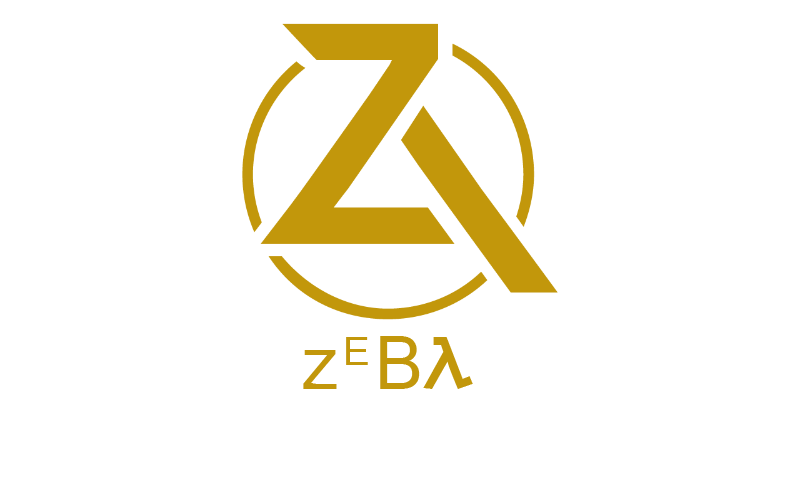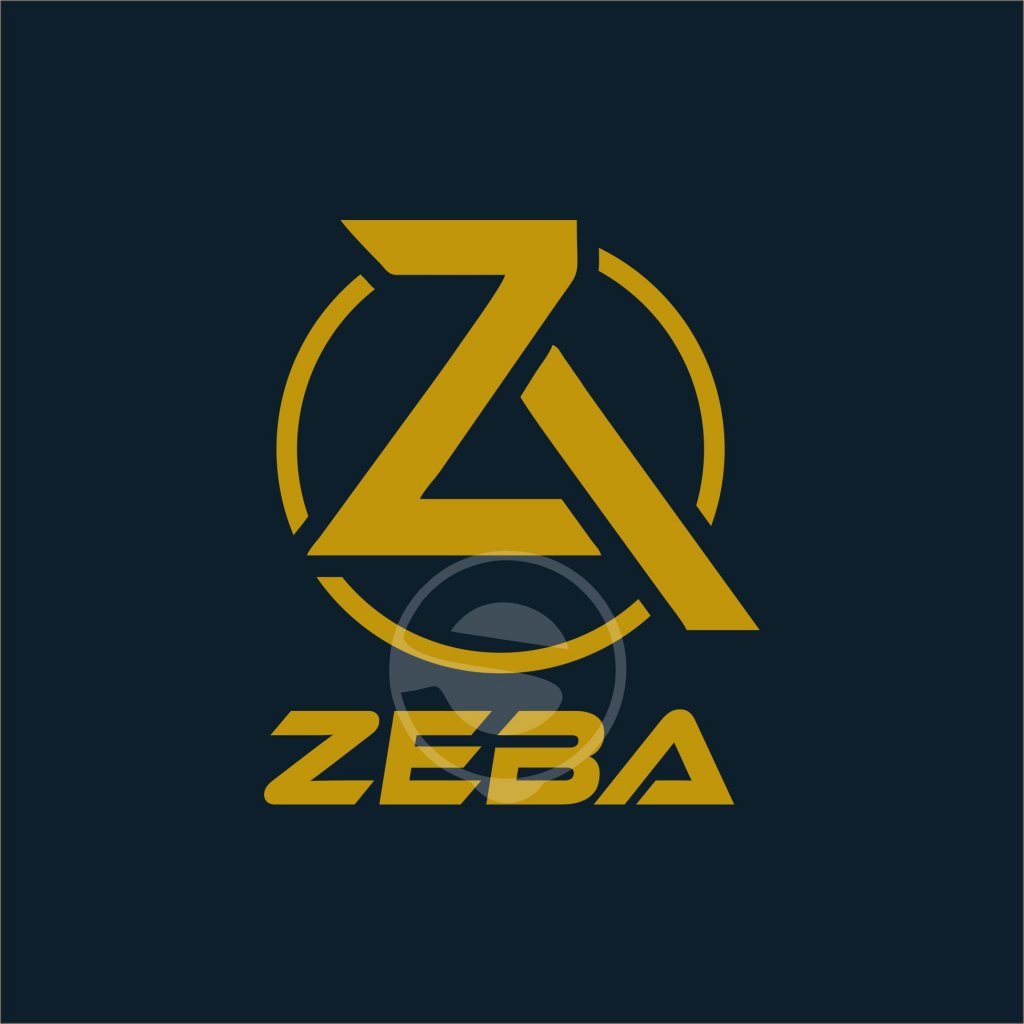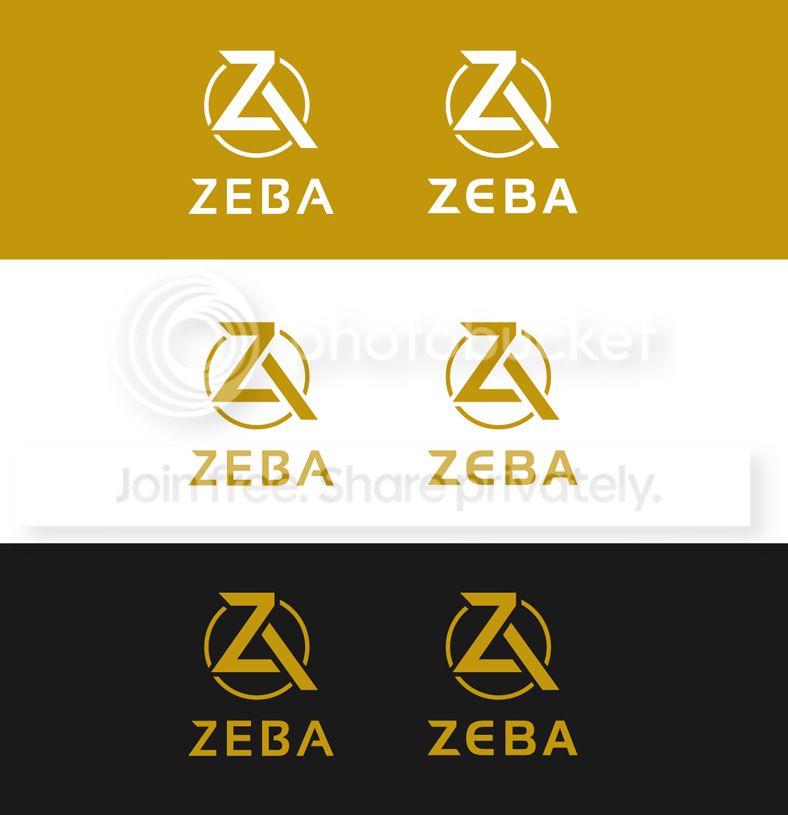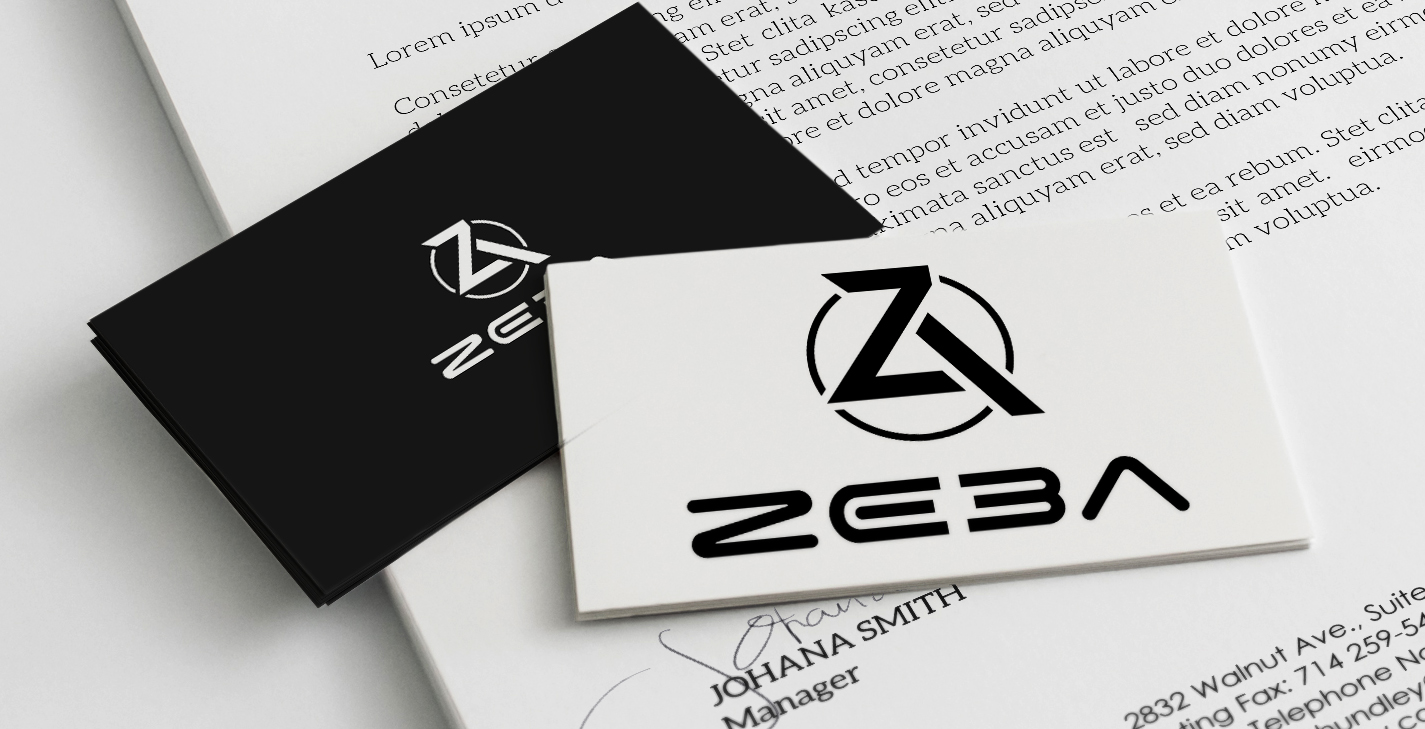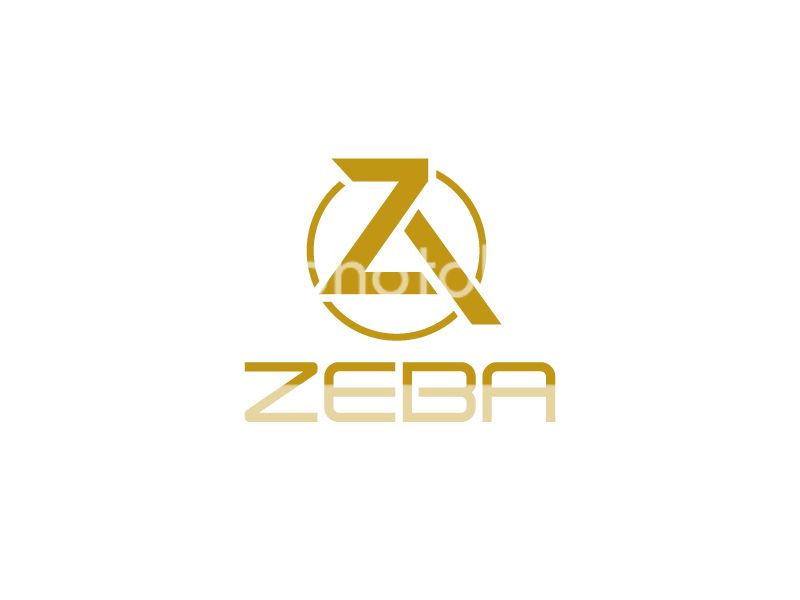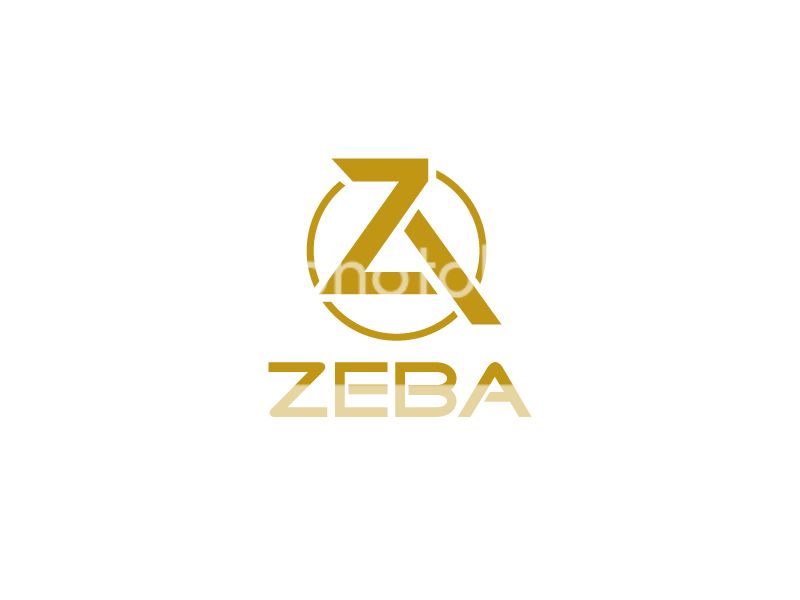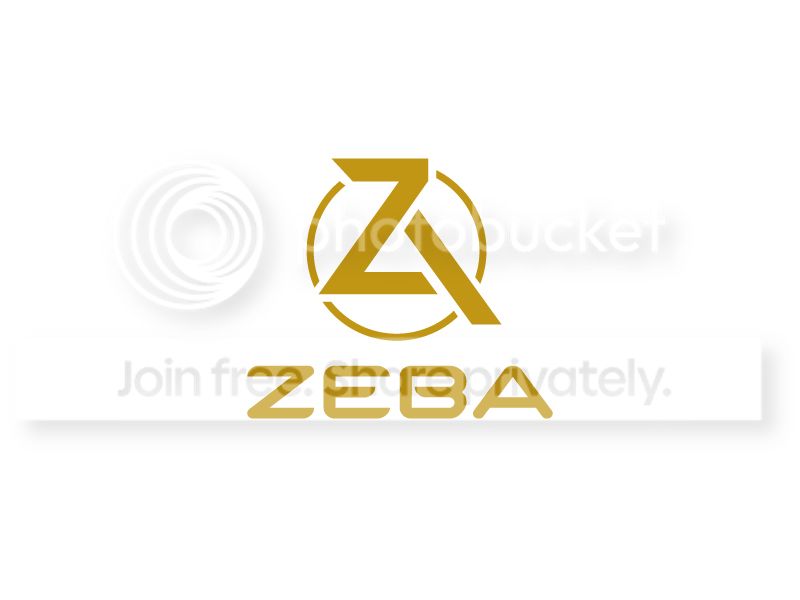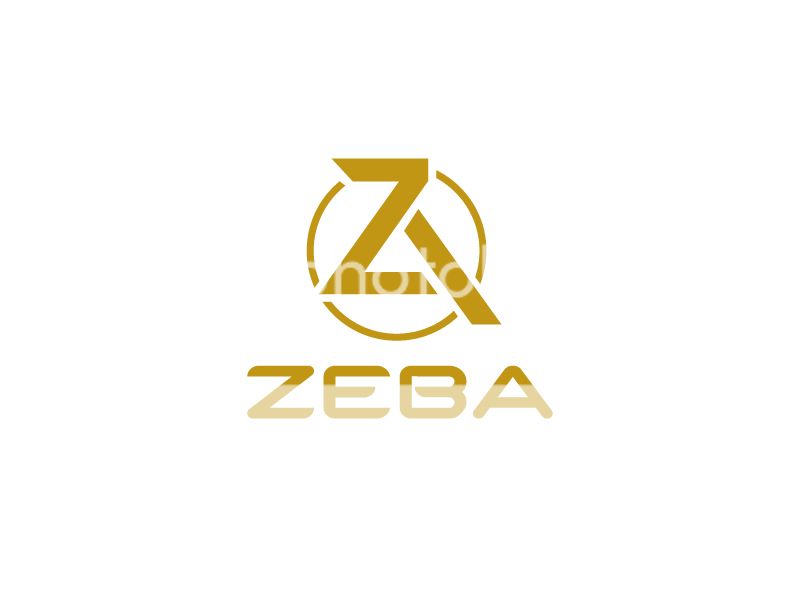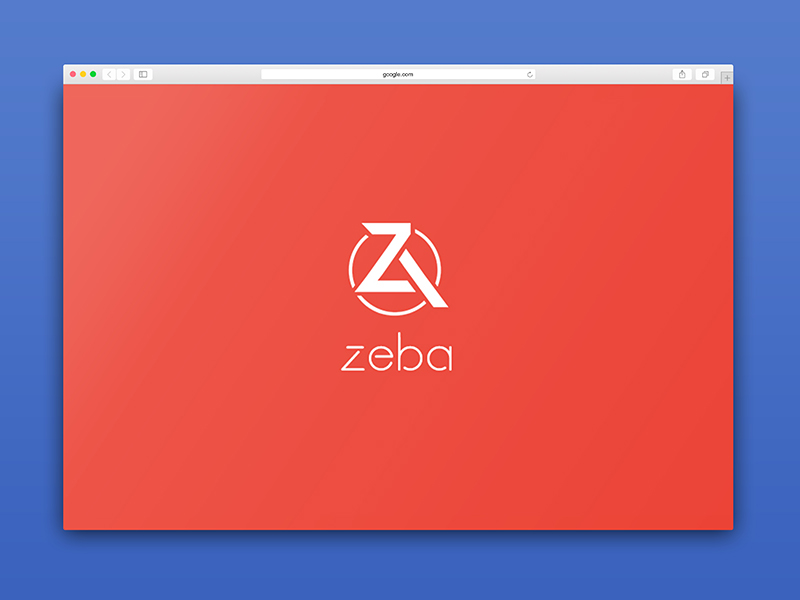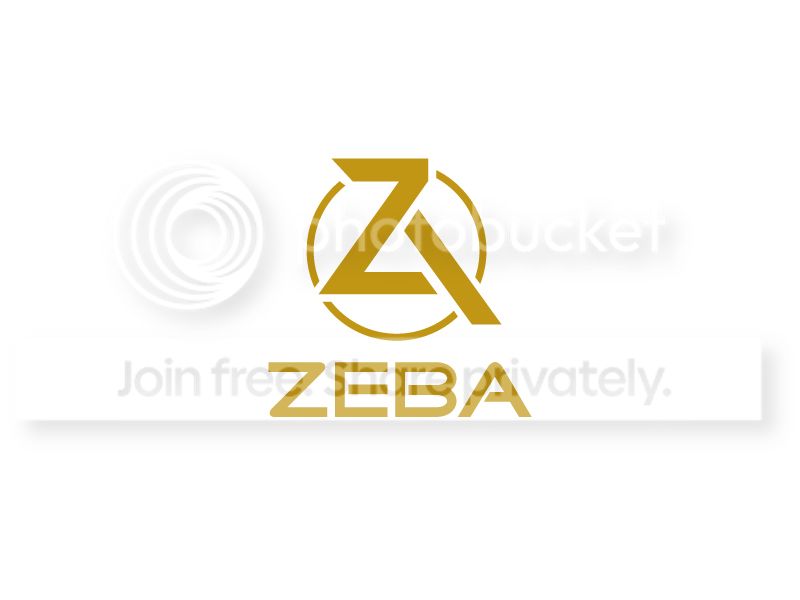
Current logo:
Need to change it From Zaha to Zeba and I want to see variations of it / tweaked up. The Z itself at the TOP should not change, or rather not change much. The font on the Zeba/look of the text should be spiced up.
2 VERSIONS
My Submission:
how about this ...
My entry:
Hi,here's my entry.